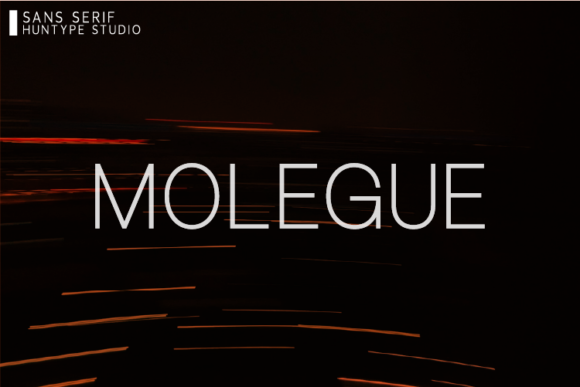
Introducing Molegue Font, the modern sans serif font that's the perfect choice for your branding and design projects. With its clean lines, smooth curves, and just the right amount of personality, Molegue will make your words stand out and leave a lasting impression.
Let Molegue be your secret weapon in the world of branding. Its versatile nature makes it the perfect font for logos, business cards, and other branding materials. Whether you're creating a bold and dynamic logo or a sleek and sophisticated business card, Molegue will help you create a brand identity that is both memorable and impactful.
When you use Molegue, you're not just downloading a font - you're gaining a powerful tool that will help you connect with your audience on a deeper level. Its clean and readable style makes it the perfect choice for web headings and body text, ensuring that your message is communicated clearly and effectively.
Molegue is the ultimate all-rounder font that can handle any task you throw at it. Whether you're designing a website, creating marketing materials, or simply writing a personal letter, Molegue will elevate your words and make them shine.
Don't settle for ordinary fonts that blend into the background. Choose Molegue, the font that will make your words dance and your designs sing. Download Molegue today and unlock a world of creative possibilities.